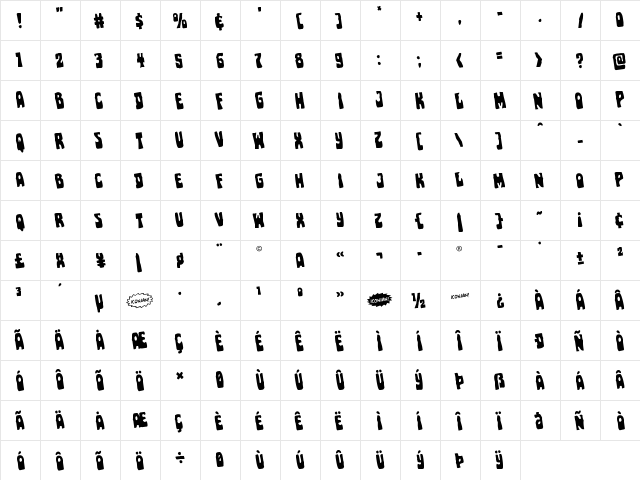
Pocket Monster Rotated Regular
Design Context for Pocket Monster Rotated Typeface
Pocket Monster Rotated is a composed and adaptable typeface that performs quietly and consistently across a wide range of design contexts.
Pro Tip: Use Pocket Monster Rotated in both headline and body roles to test its range before committing to a single application.